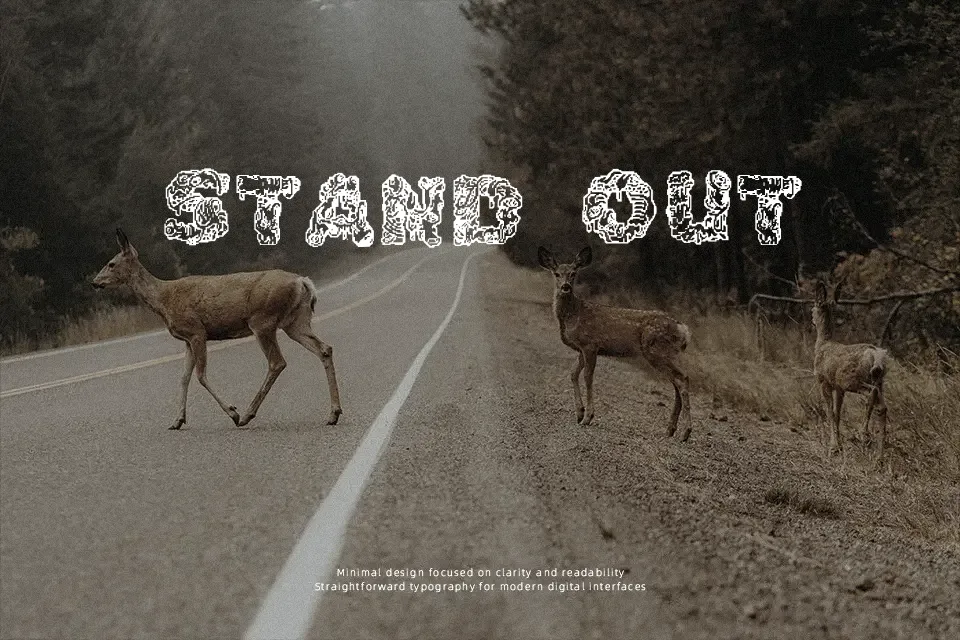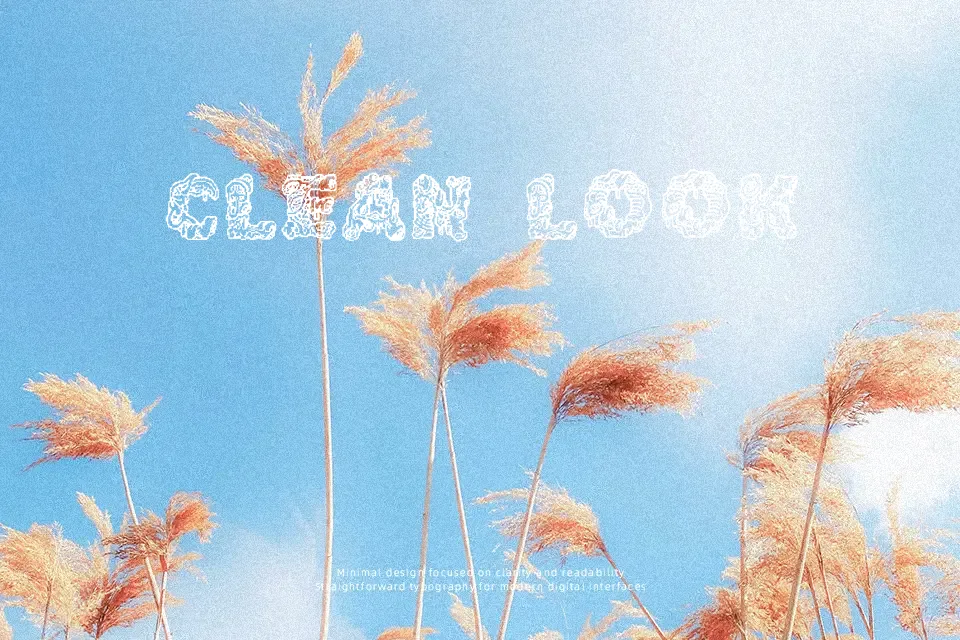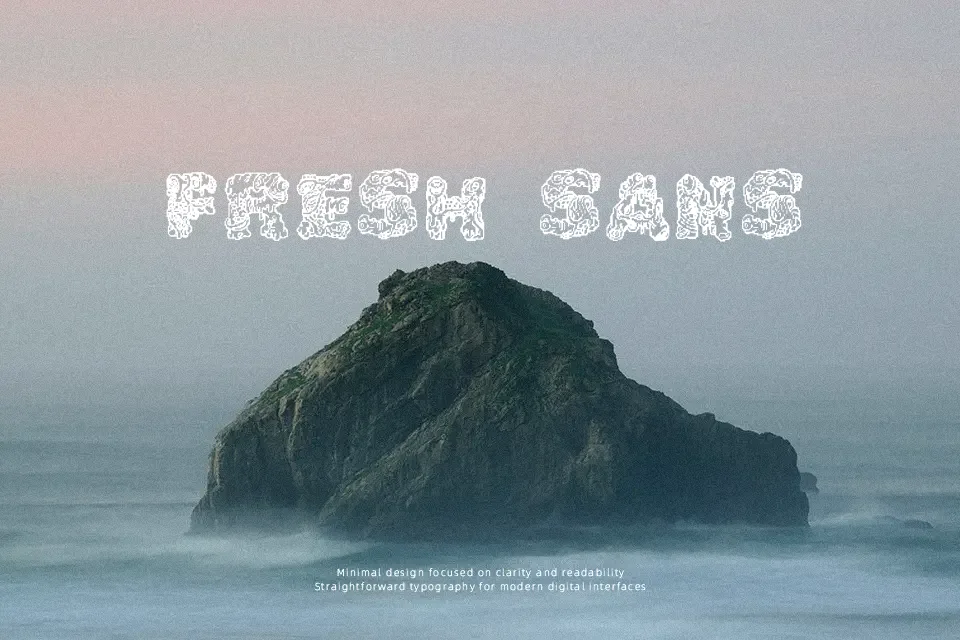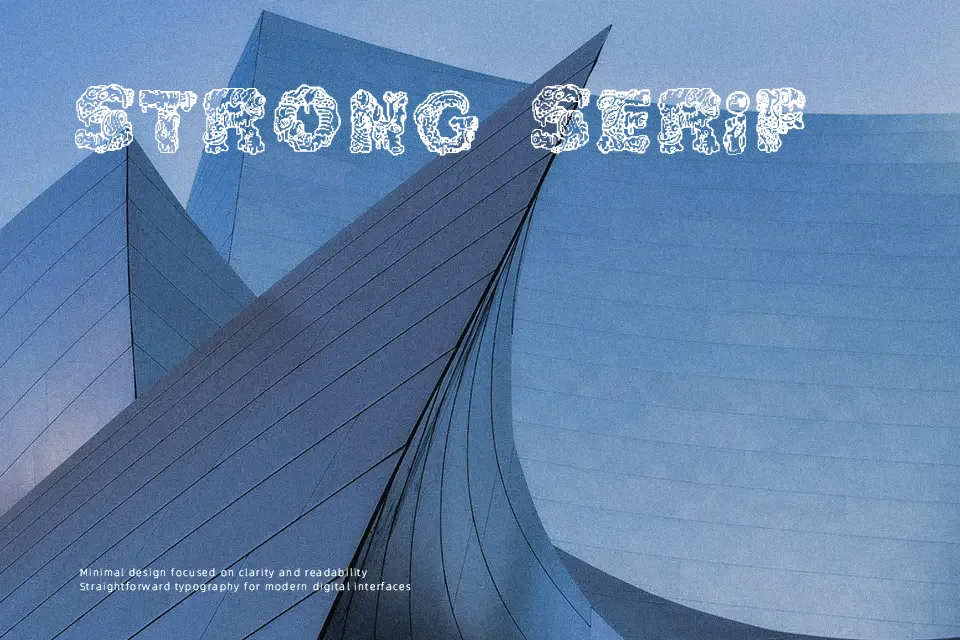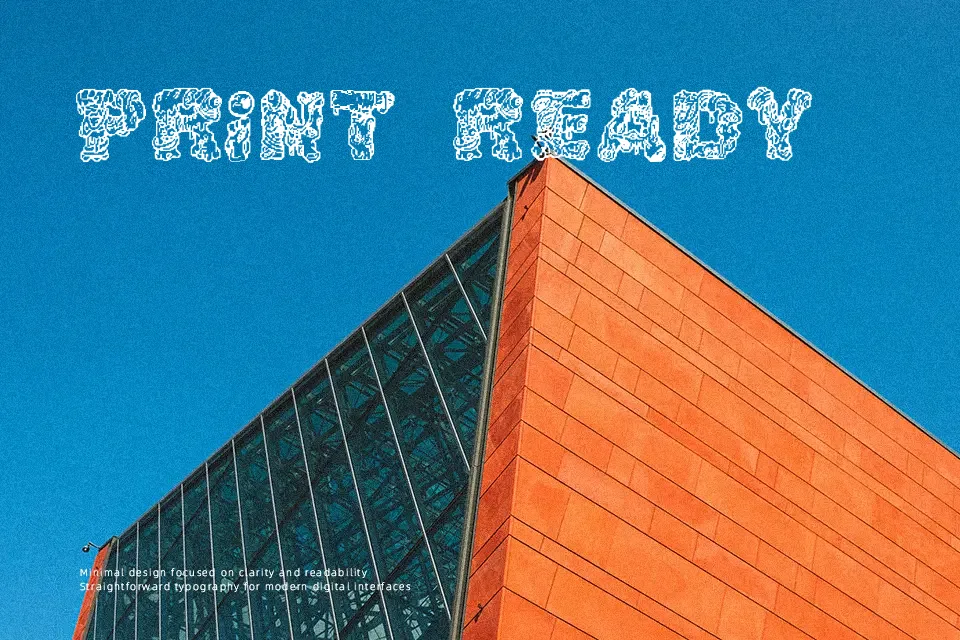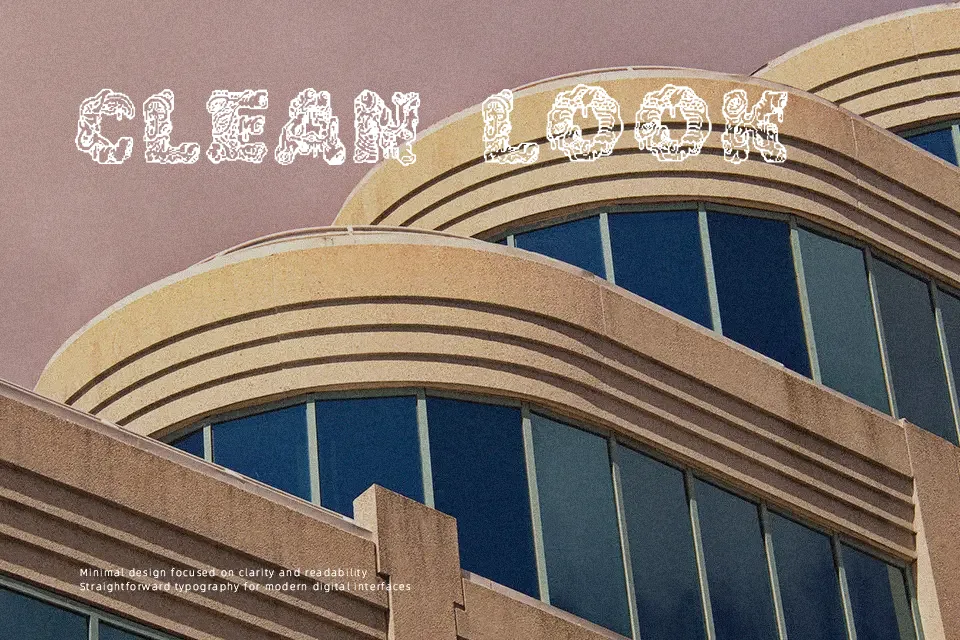
Cake Frosting Font
Designed by Neil Van Ess
Cake Frosting Font uses bubbly, rounded shapes with frosting-style curves and slightly uneven strokes, giving it the look of hand-piped icing on a cake. The letters are bold and compact, with tight counters that read clearly at medium to large sizes but can feel busy in dense paragraphs. It leans strongly decorative and casual rather than formal, so it works nicely for bakery branding, party signage, sweet recipe titles, children’s crafts, and playful social media graphics. On the other hand, the quirky outlines and high ornamentation make it a poor fit for professional documents, minimalist tech brands, or long editorial text where cleaner type is expected.
Bakery and dessert branding headlines
Party invitations and kids’ event posters
Sweet-themed packaging and labels
Playful social media graphics for food content
Body text or long paragraphs
Serious corporate or editorial layouts
Minimalist tech or finance branding
Very small on-screen captions
Perfect for branding, headline, and kids, with a creative and decorative style.